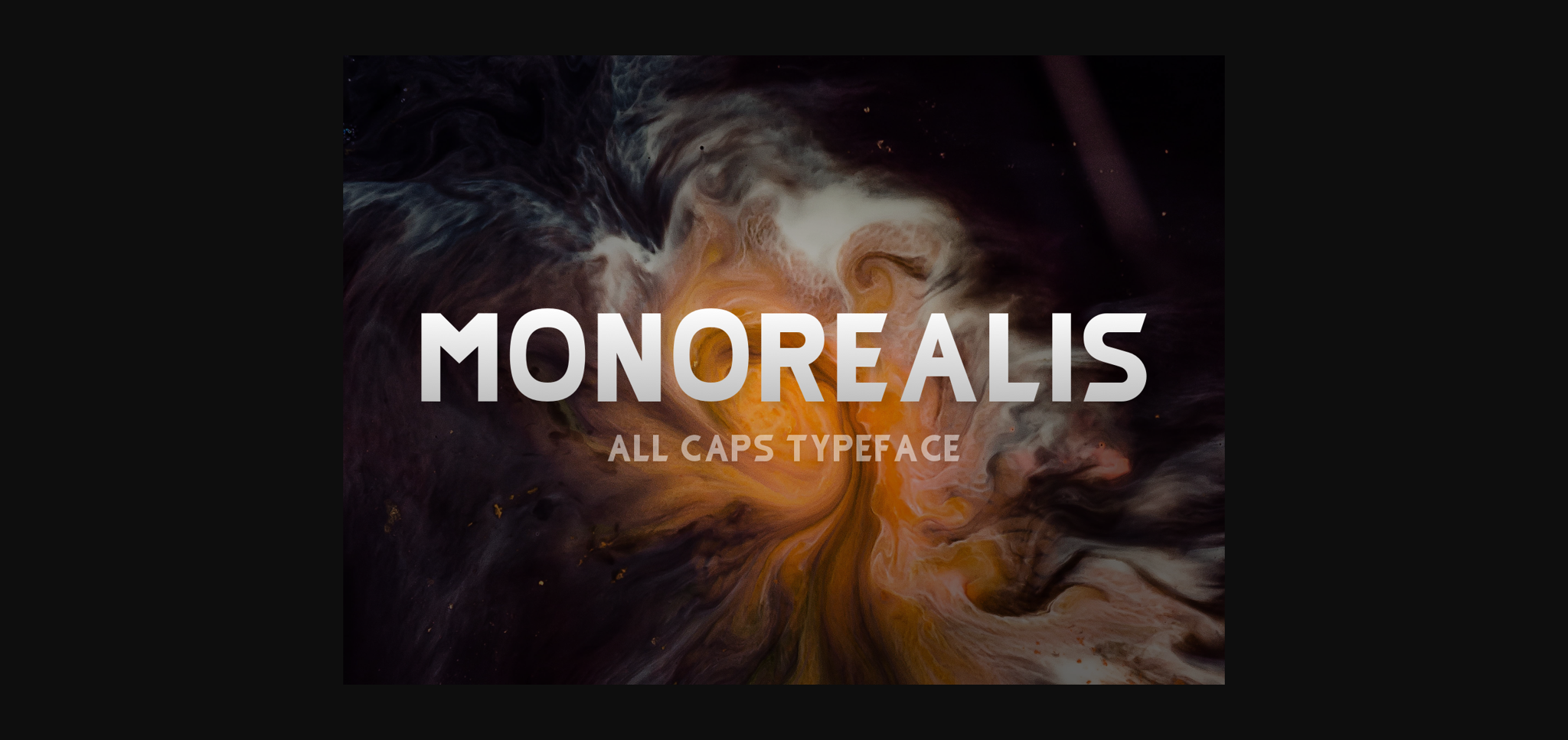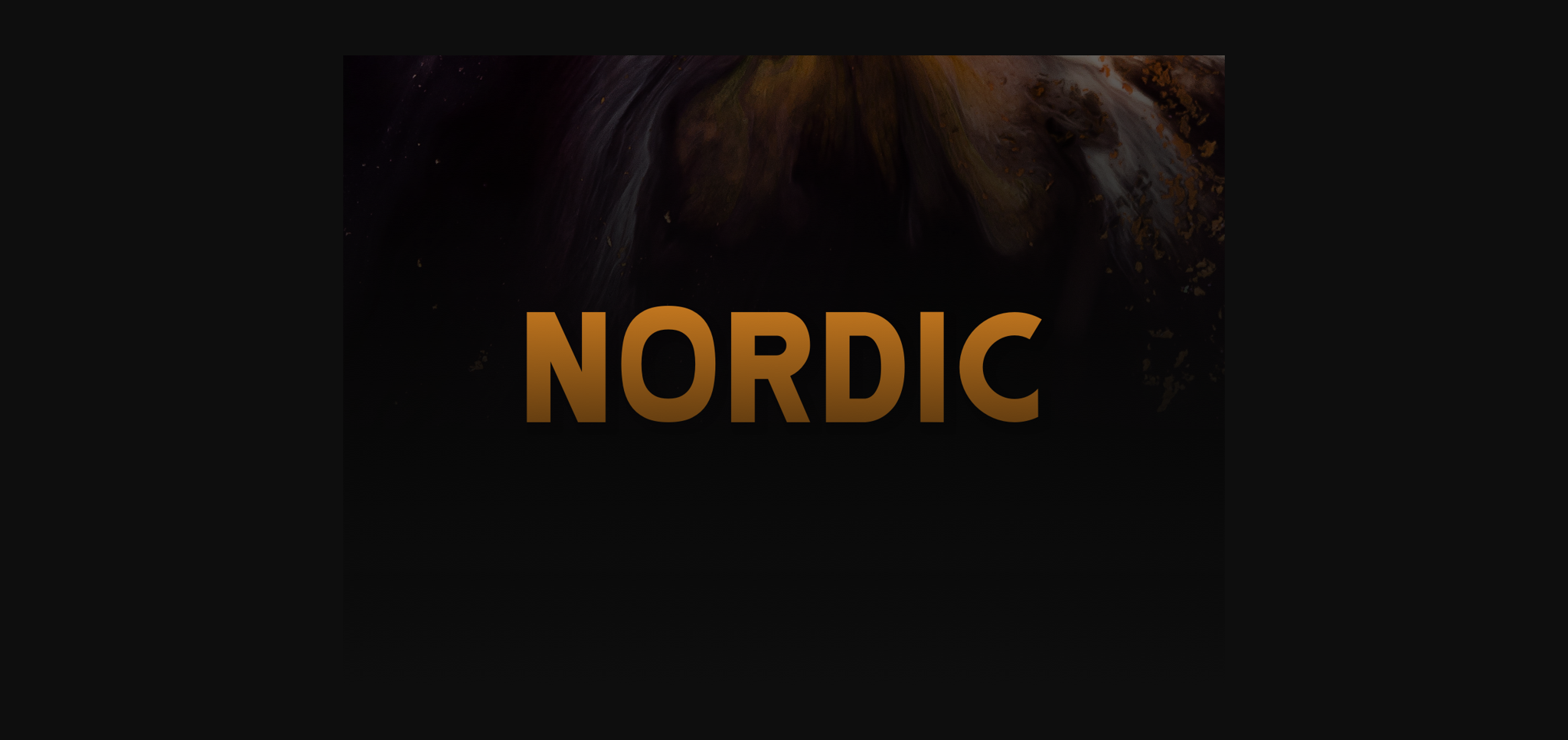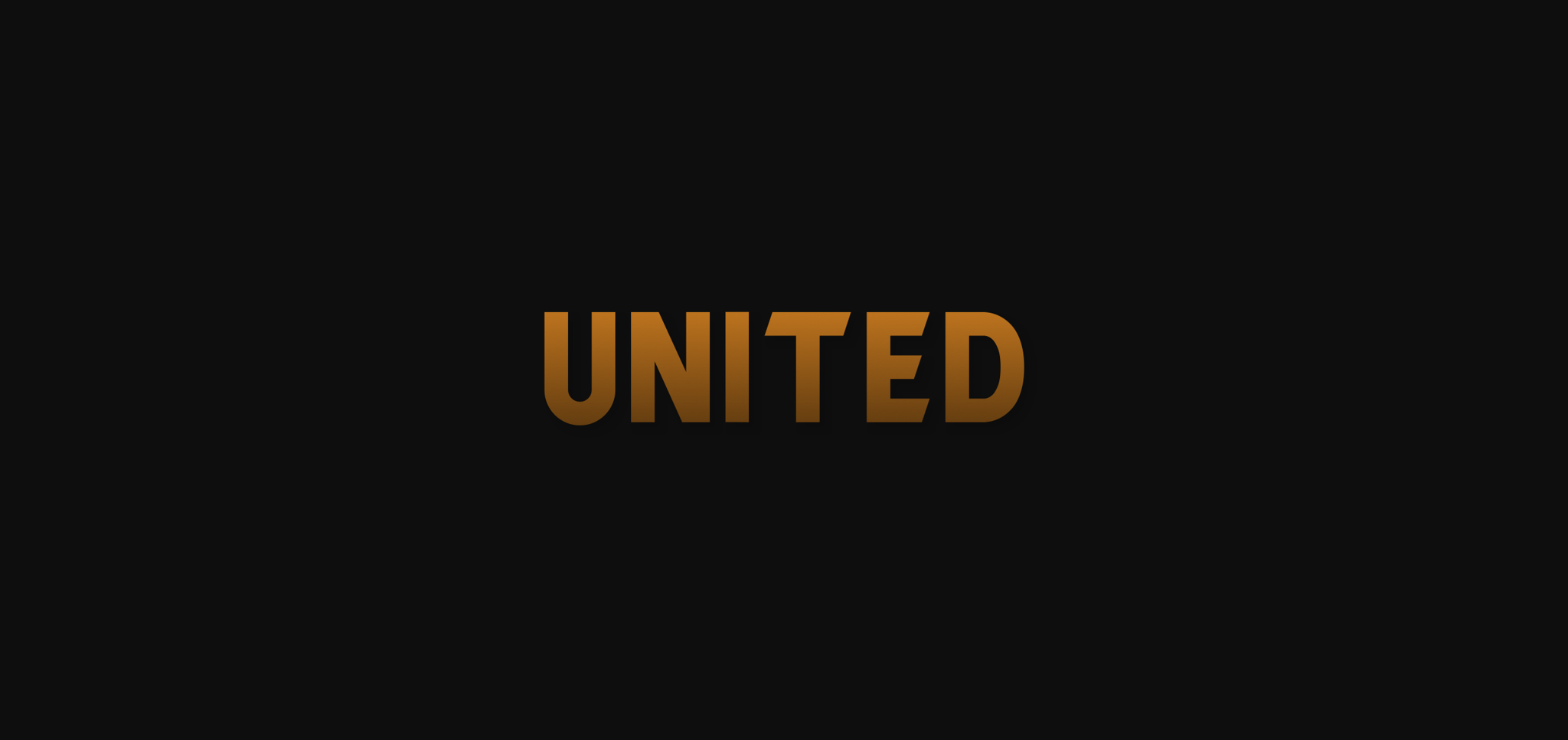
Monorealis Font
About Monorealis Font
Monorealis is a simple and neat sans serif font. Modern and futuristic, it can easily be matched to an incredibly large set of projects, so add it to your creative ideas and notice how it makes them stand out!